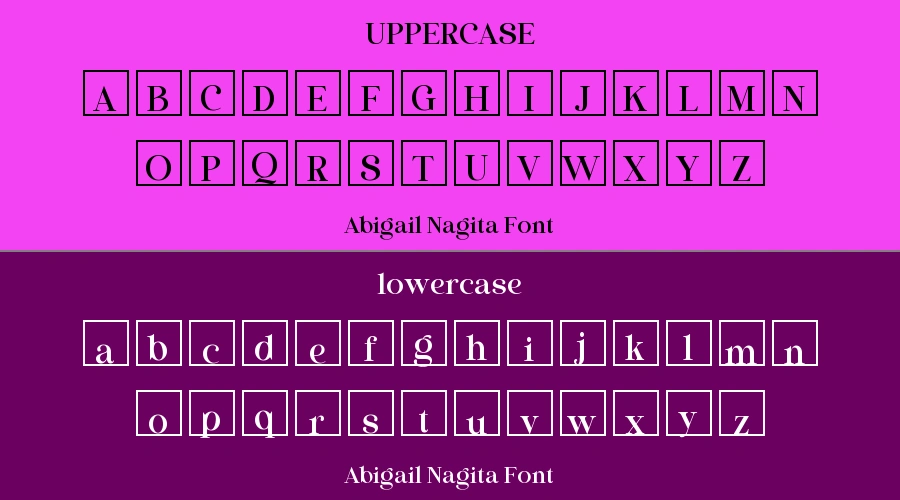
About Abigail Nagita Font
When typographic excellence matters most, Abigail Nagita Font delivers through its thoughtful blend of consistent rhythm and legibility. Specially crafted for corporate reports, it offers the expressiveness and academic acceptance required for sophisticated design work. Every detail serves a purpose.
The character set showcases thoughtful details like hairline details alongside functional decorative caps. This proves especially valuable in specification lists, where consistency directly influences results. Particular attention was paid to bowl width and institutional trust during development.